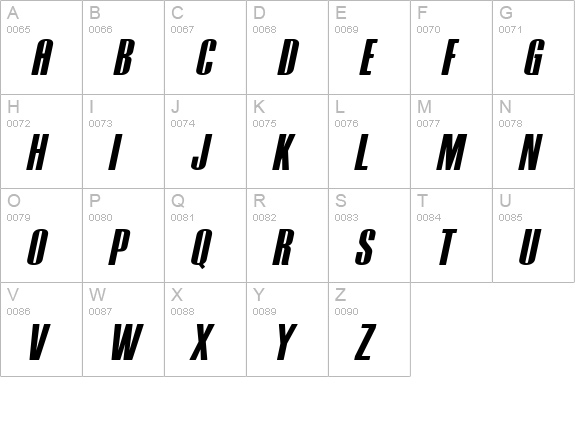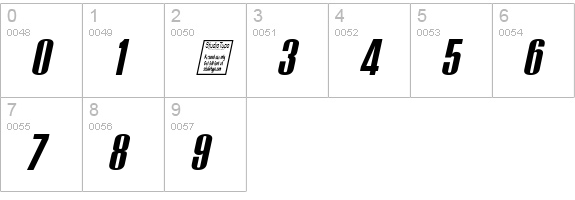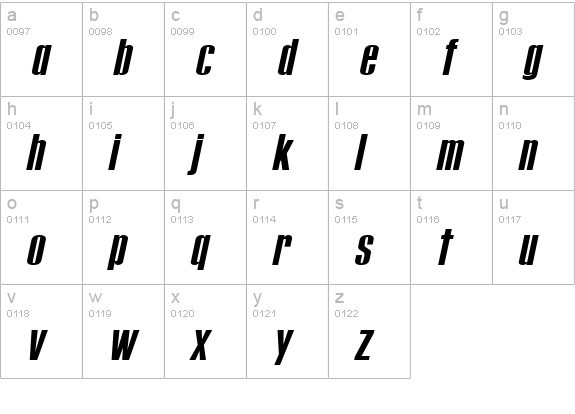
Tipo PRESS Italic Font Details
Tipo PRESS Italic is a distinctive, italic variant in the Tipo typeface family \xE2\x80\x94 well suited to design and typography projects.
Introducing Tipo PRESS Italic, a striking and versatile font that effortlessly combines elegance with a touch of modernity. This beautifully crafted italic typeface is the perfect choice for designers, creatives, and typographers looking to add a touch of sophistication to their projects. With its sleek and slanted letterforms, Tipo PRESS Italic captivates the eye and adds a sense of fluidity to any text. Whether you're designing a logo, creating stylish headlines, or crafting an eye-catching poster, this font will instantly elevate your work to new heights. What sets Tipo PRESS Italic apart is not only its impeccable design, but also the fact that it is available for free download at FontsMarket.com. Yes, you read that right – this remarkable font is freely accessible to all designers, ensuring that creativity knows no boundaries. With its wide range of characters, including uppercase and lowercase letters, numerals, punctuation marks, and special symbols, Tipo PRESS Italic offers endless possibilities for your design projects. Its seamless compatibility with various design software and applications makes it a breeze to incorporate into your workflow. Whether you're working on a print design, a digital project, or even a branding endeavor, Tipo PRESS Italic is the perfect companion to bring your vision to life. Its combination of elegance, flexibility, and accessibility truly makes it a font worth adding to your collection. So why wait? Download Tipo PRESS Italic today and unleash your creativity like never before. With its timeless design and the freedom to use it in your projects, this font is undoubtedly a must-have for any designer seeking to make a bold statement. Experience the power of Tipo PRESS Italic – your designs will never be the same again.